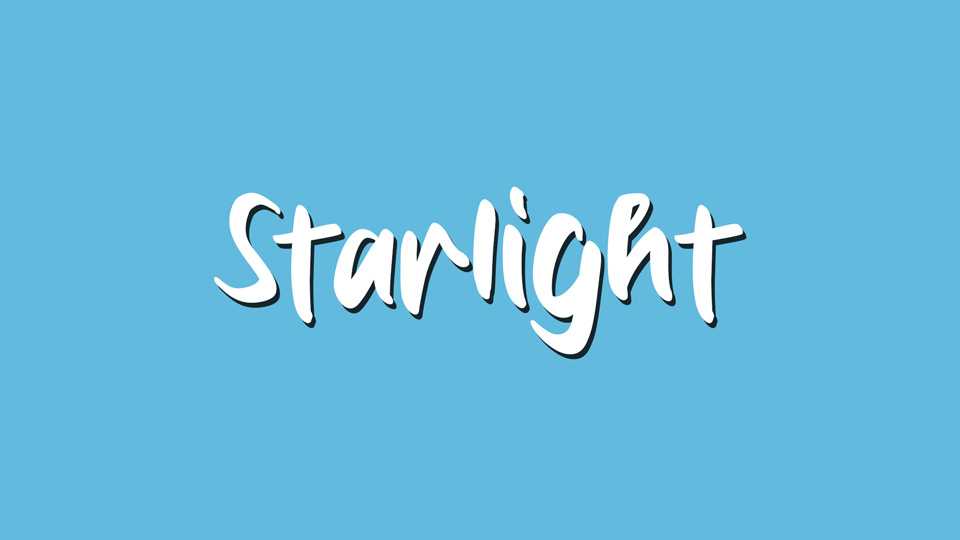
Download Starlight font, a casual, natural handwritten typeface designed to bring good vibes. Whether you need it for notes, quotes, crafts or graphics Starlight font is the perfect choice for a truly authentic look.